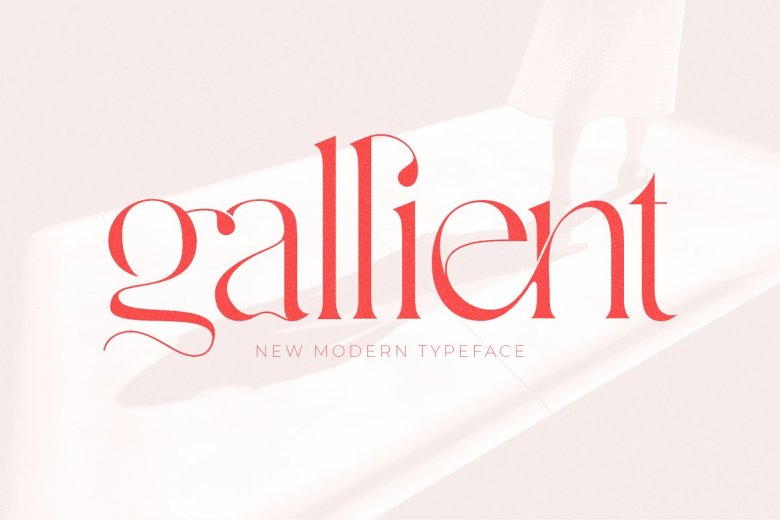
Gallient Font
Introducing the Gallient Serif Font is a new modern serif display typeface. This another collection of Serif is perfect for your next branding project, excellent for your business. Gallient have a smooth edges, so this font gives an authentic handcrafted feel style.
Gallient is perfect choice for people looking for clean, modern, minimalist, elegant, beauty design styles. Suitable for almost any graphic designs such as logo, branding materials, business cards, gift cards, t-shirt, cover, thumbnail, print, poster, photography, quotes .etc
Gallient Serif Font